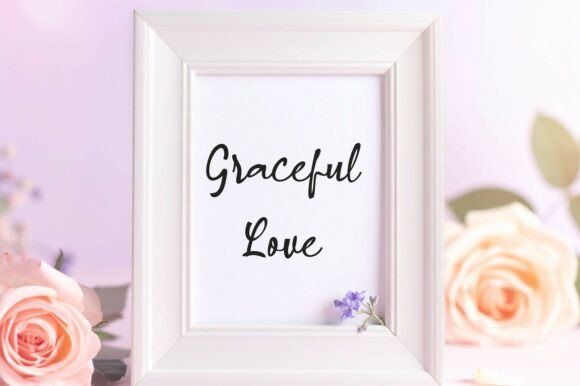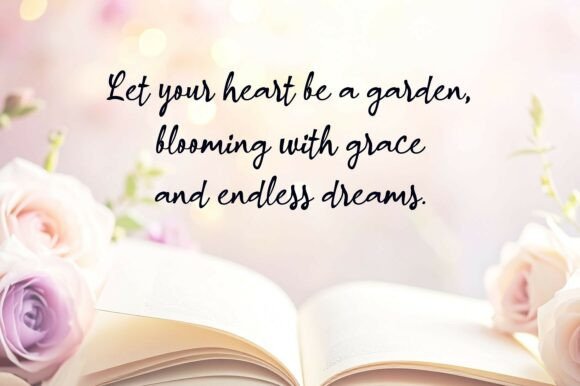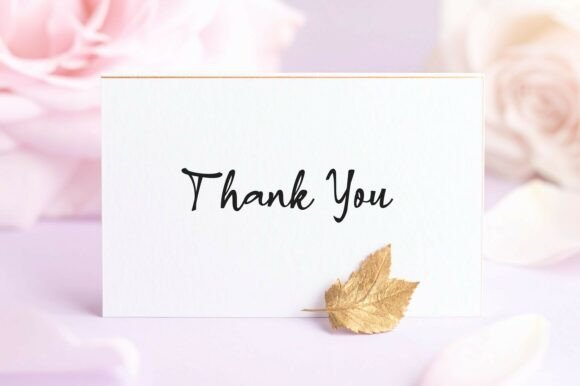
Discover the Elegance of Angkanya Sebelas Font: A Perfect Blend of Sophistication and Warmth
In the world of typography, few fonts manage to strike a balance between elegance and warmth. However, the “Angkanya Sebelas” font stands out as a remarkable exception. This beautiful script typeface is designed to mimic natural handwriting, offering a sophisticated yet personal touch to any design project. With its graceful curves, subtle swashes, and harmonious connections between characters, Angkanya Sebelas is the perfect choice for designers and crafters looking to add a touch of refinement and heartfelt charm to their work.
The Unique Characteristics of Angkanya Sebelas Font
Angkanya Sebelas boasts several distinctive features that set it apart from other script fonts. Its varying stroke thickness adds a calligraphic charm, making it feel authentic and handcrafted. The font’s elegant flow and subtle swashes give it a dynamic and expressive quality, allowing it to convey both formality and a gentle, human touch. Whether you’re working on a wedding invitation, a branding project, or a social media graphic, Angkanya Sebelas is sure to make a lasting impression.
Ideal Applications for Angkanya Sebelas Font
Due to its refined and elegant aesthetic, Angkanya Sebelas is exceptionally well-suited for a variety of design projects. Some of the ideal applications for this beautiful font include:
- Wedding Invitations: The font’s sophisticated and personal touch makes it perfect for wedding invitations, adding a touch of elegance and romance to your special day.
- Personal Stationery: Angkanya Sebelas is ideal for creating personalized stationery, such as letterheads, greeting cards, and journals, that exude warmth and sophistication.
- Elegant Branding: The font’s refined aesthetic makes it an excellent choice for branding projects that require a touch of elegance and sophistication.
- Motivational Quotes: Angkanya Sebelas is perfect for creating inspiring and motivational quotes that convey a sense of warmth and approachability.
- Social Media Graphics: The font’s delicate feel makes it an excellent choice for social media graphics, such as Instagram posts, Facebook covers, and Twitter headers, that require a touch of elegance and refinement.
Why Choose Angkanya Sebelas Font?
With so many fonts available, why choose Angkanya Sebelas? Here are just a few reasons why this font stands out:
- Effortless Flow: Angkanya Sebelas features an effortless flow that makes it a joy to read and look at.
- Versatility: The font’s elegant and refined aesthetic makes it suitable for a wide range of design projects, from wedding invitations to branding and social media graphics.
- Human Touch: Angkanya Sebelas conveys a gentle, human touch that makes it perfect for designs that require a personal and approachable feel.
In conclusion, Angkanya Sebelas is a beautiful and elegant script typeface that offers a perfect blend of sophistication and warmth. Its unique characteristics, versatility, and human touch make it an excellent choice for designers and crafters looking to add a touch of refinement and heartfelt charm to their work. Whether you’re working on a wedding invitation, branding project, or social media graphic, Angkanya Sebelas is sure to make a lasting impression. So why not give it a try and experience the elegance and warmth of Angkanya Sebelas for yourself?